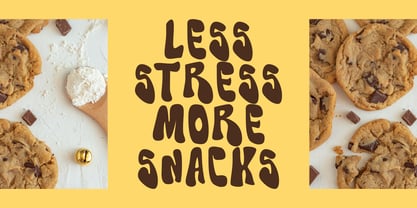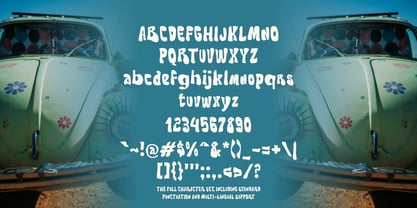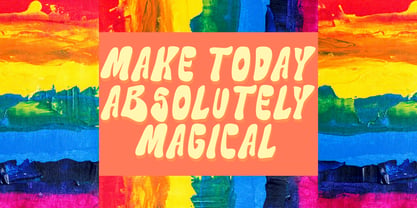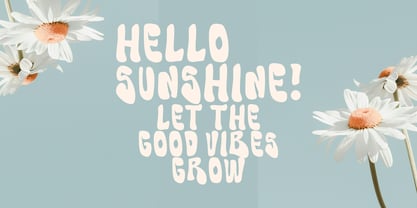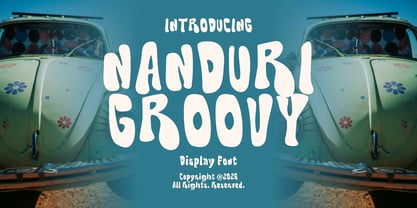
Nanduri Groovy
by Mei Suseno
The Nanduri Groovy Font Family was designed by Wahyu Eka Prasetya, Mei Suseno and published by Mei Suseno. Nanduri Groovy contains 2 styles and family package options. More about this family
Nanduri Groovy is a playful retro display font inspired by the funky typography of the 70s. With its chunky organic shapes, hand-drawn curves, and groovy personality, this font brings a fun and cheerful vibe to any design project.
Perfect for posters, logos, packaging, stickers, branding, social media graphics, children’s products, and creative headlines, Nanduri Groovy adds a bold statement while keeping a friendly and whimsical feel.
Whether you’re creating vintage-inspired artwork or modern playful branding, this font will make your designs stand out with its unique handmade character and eye-catching style.
Designers: Wahyu Eka Prasetya, Mei Suseno
Foundry: Mei Suseno